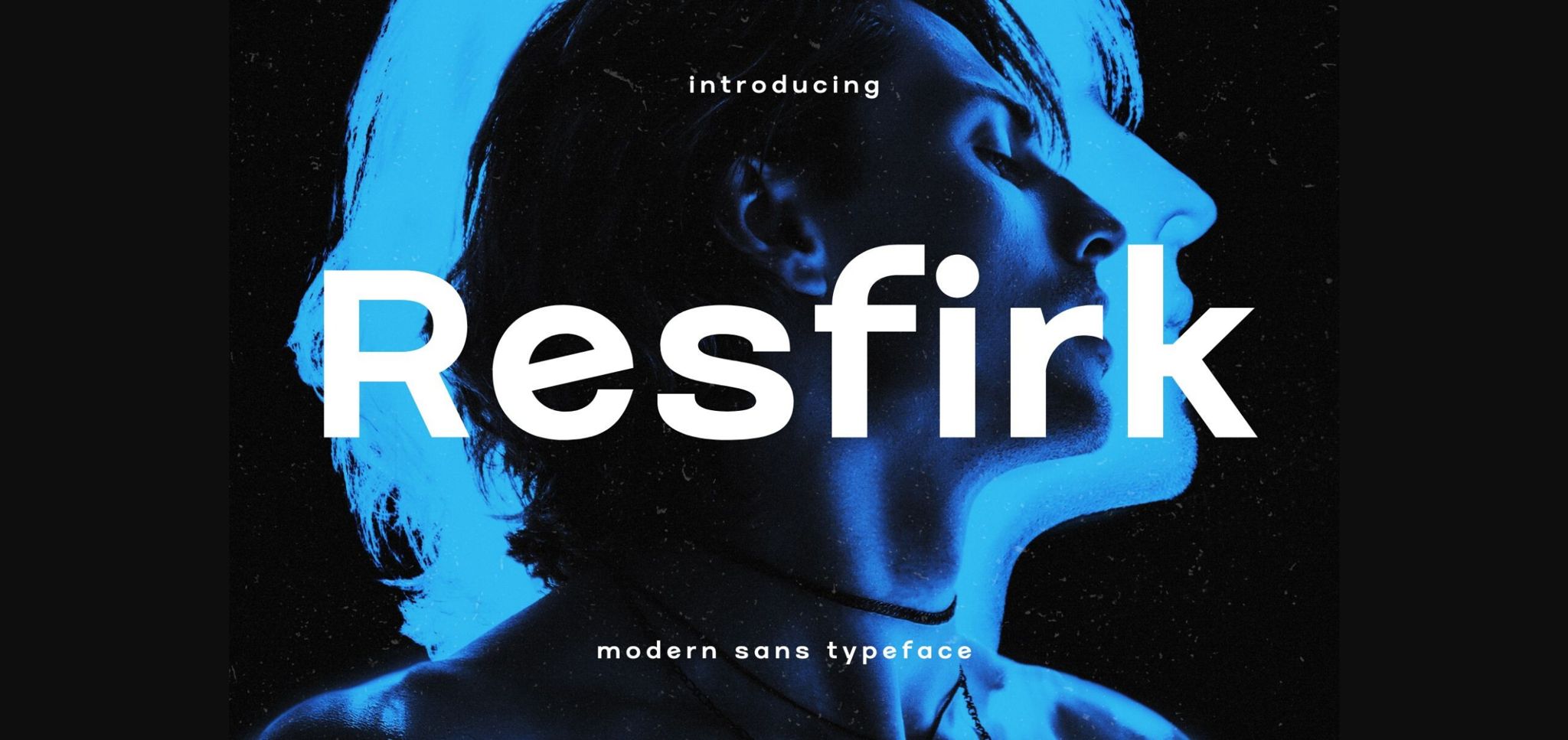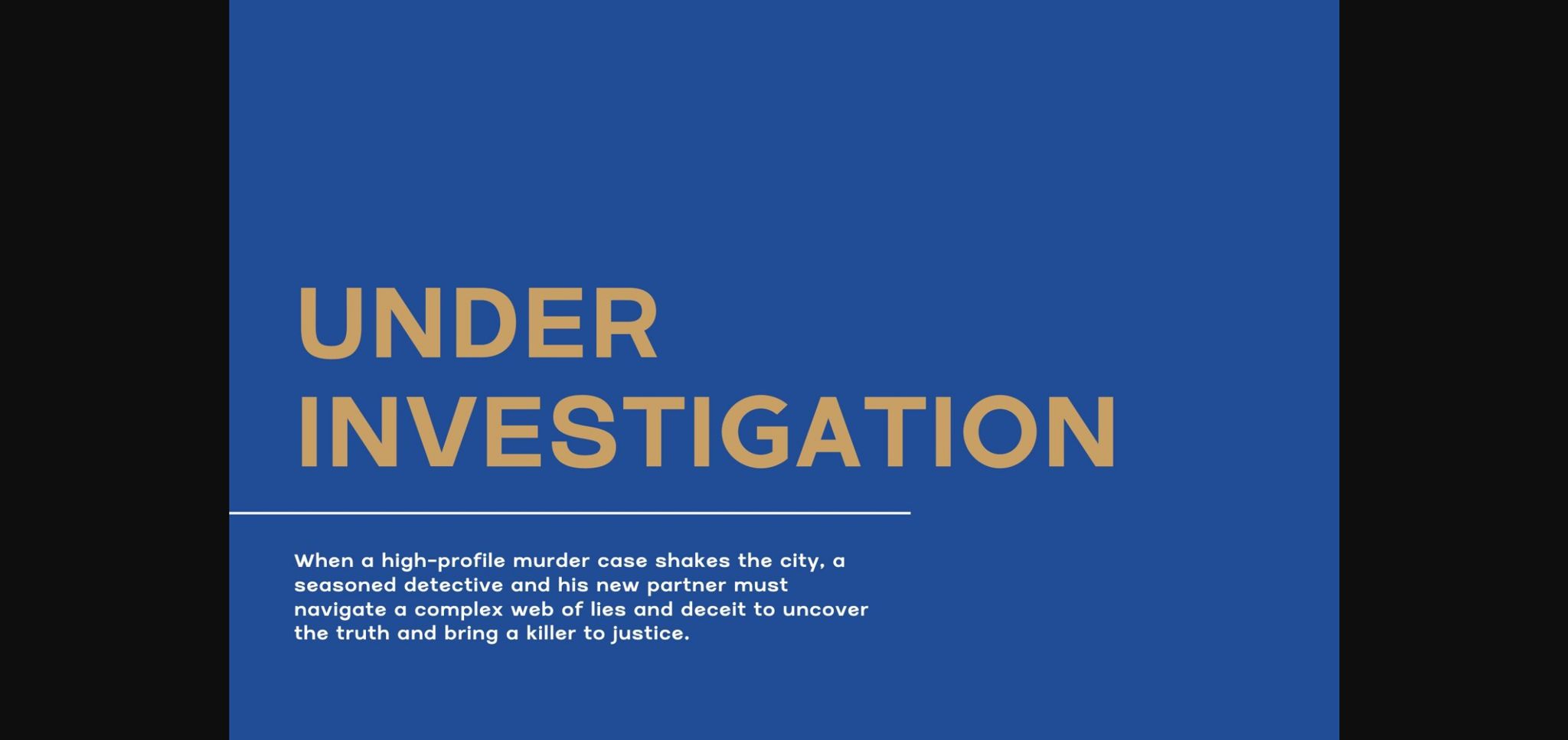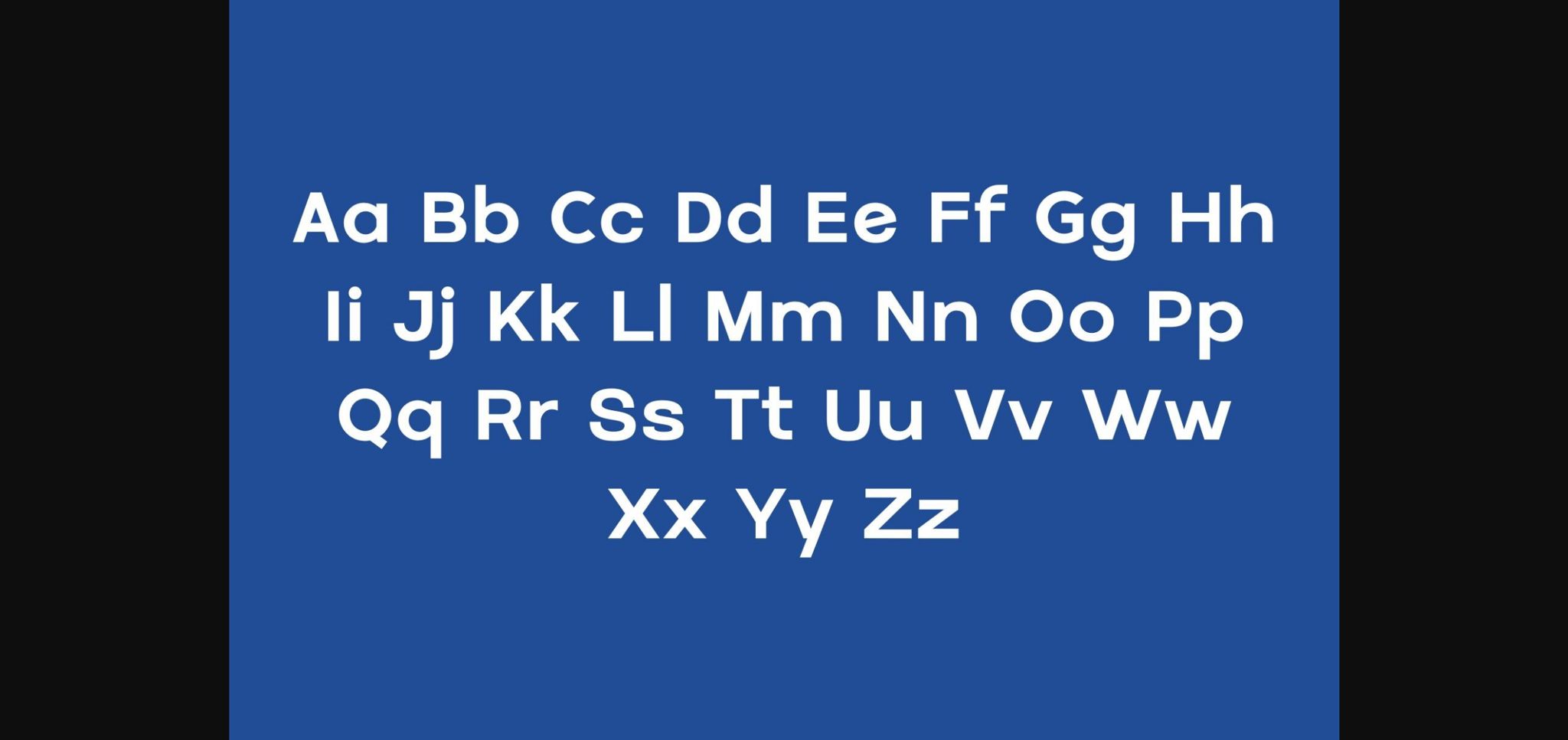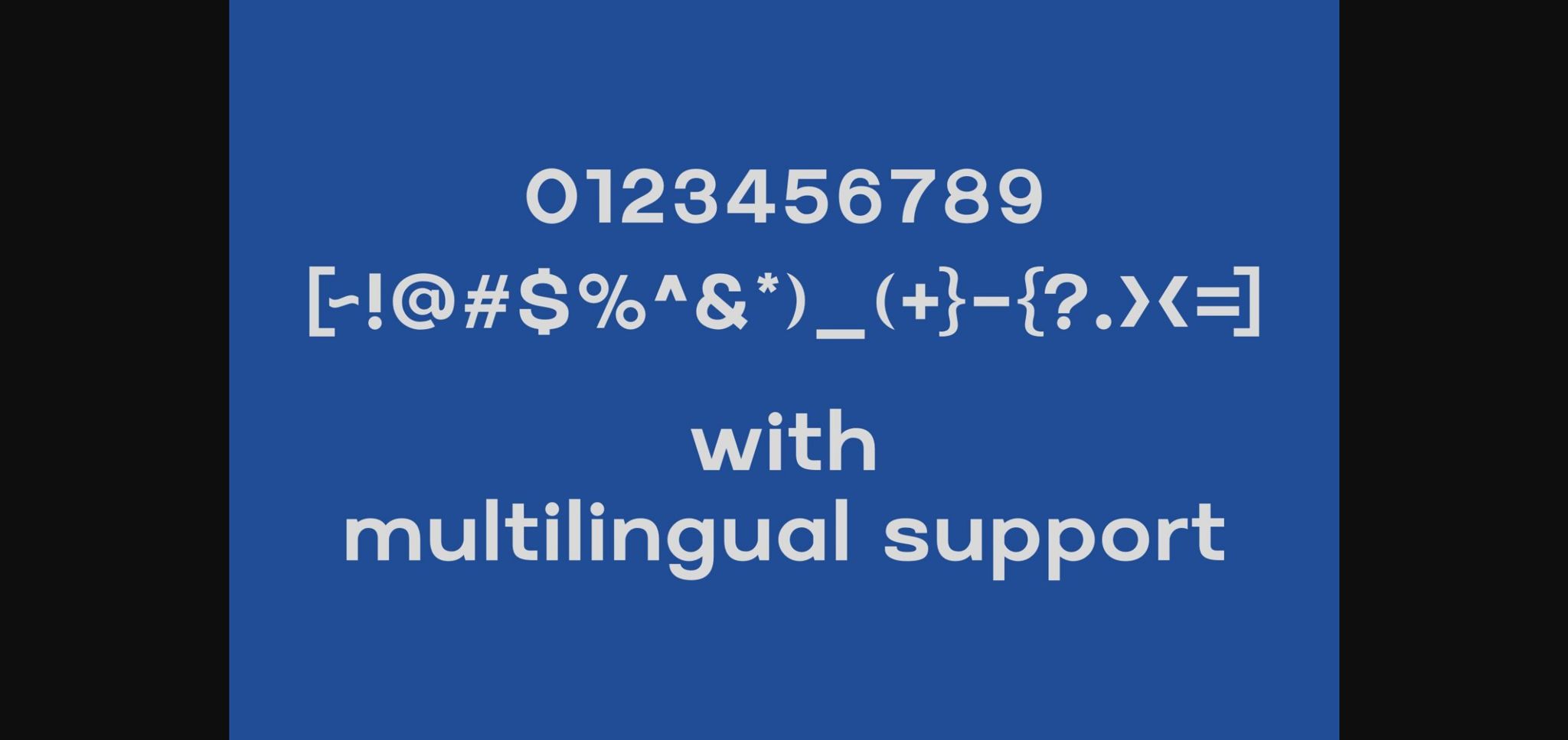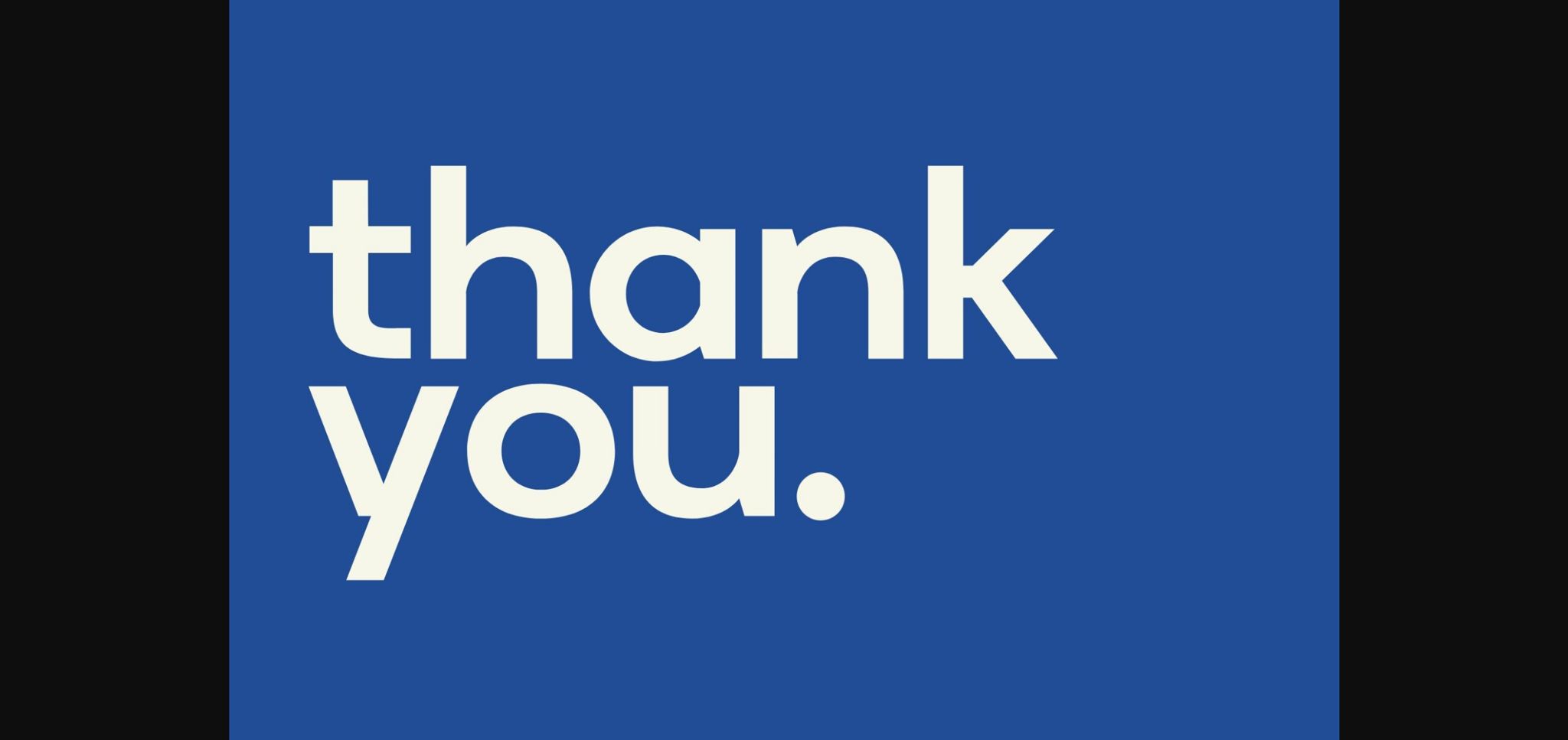
Resfirk Font
About Resfirk Font
Introducing “Resfirk” – a modern sans serif font that embodies simplicity and sophistication. With clean lines and a contemporary aesthetic, Resfirk is versatile for a wide range of design applications. Whether you’re crafting sleek branding, minimalist layouts, or professional presentations, this font lends a crisp and polished look to your typography. Elevate your designs with the clarity and modernity of Resfirk for a timeless and refined touch.